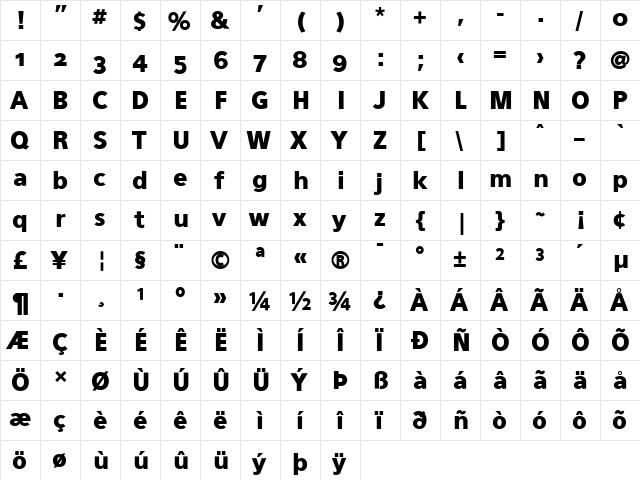
Eau Sans Black Old-styled Figures
| Foundry | YOFonts |
| Designer | Yamaoka Yasuhiro |
Design Context for Eau Typeface
Eau takes a measured approach to typography — its balanced proportions and neutral character make it a reliable workhorse for both digital and print work.